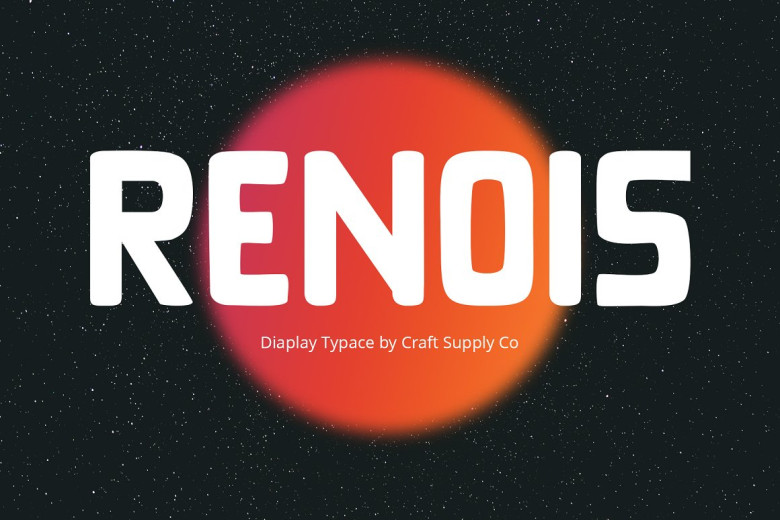
Renois Font
Renois Sans Display Type goes far beyond mere font design to establish an impactful presence across different display applications and grab attention immediately. Renois’ purposeful construction ensures it catches attention almost instantly. With its striking and compact layout, this sign ensures your message is placed front-and-center and grabs viewers immediately, making it the ideal solution for headlines or displays that require immediate attention.
Renois is known for its striking visual design, yet still prioritizes readability and ensures your message reaches audiences of any size. Each character is carefully constructed with this in mind so it communicates effectively even in larger formats.
Renois versatility can be seen across a variety of display options such as banners, posters, or promotional materials. The typeface easily adapts to meet your design requirements for maximum impact in every environment.
Renois Display Font